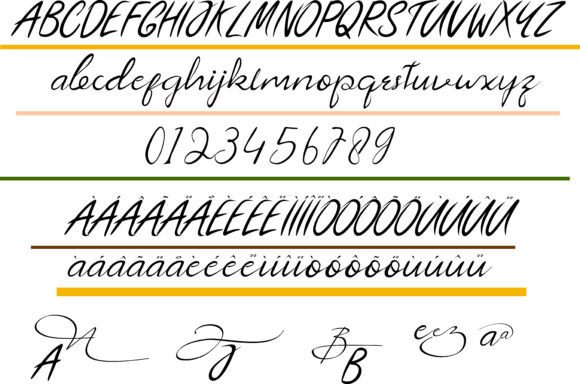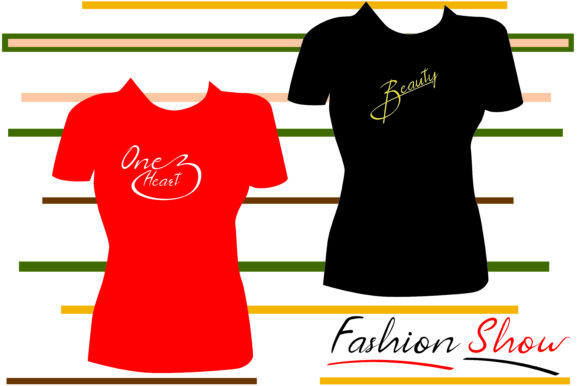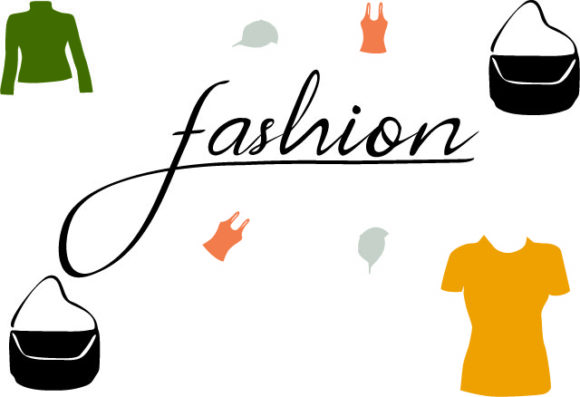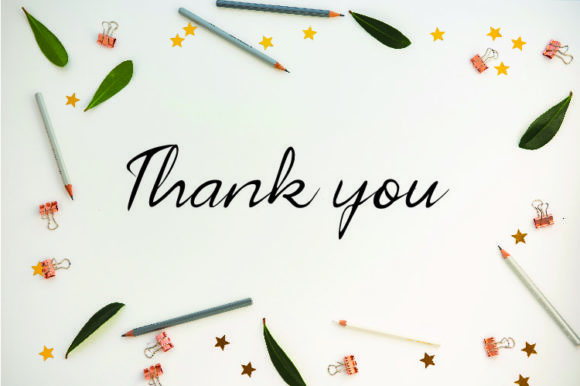
Almeera Font
About Almeera Font
Almeera is a gorgeous and fancy calligraphy script font with a serious vibe. Use it to add an elegant charm to any design project!